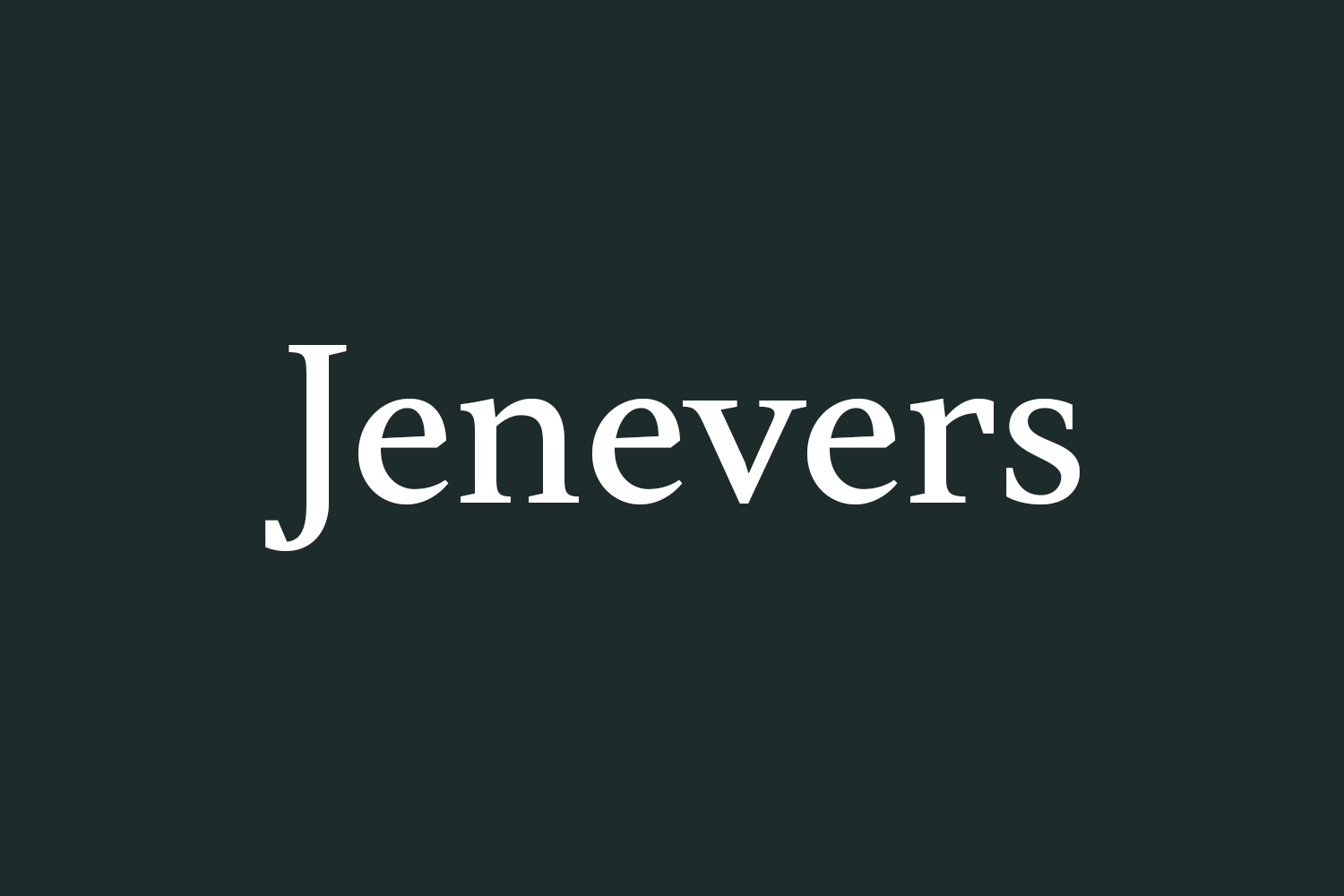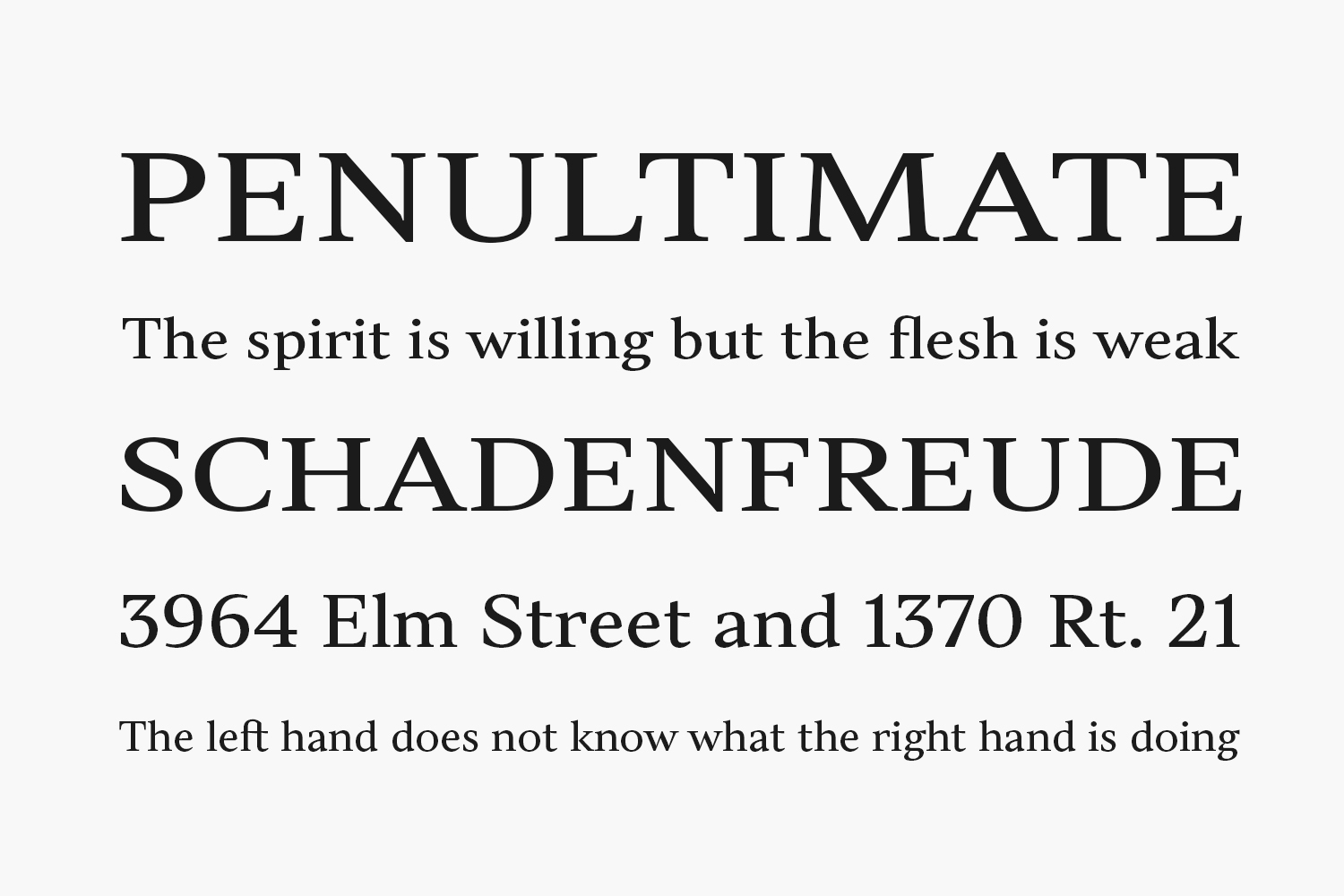
Jenevers Free Font Family is like a cool breeze on a warm summer day – refreshing, vibrant, and full of energy. This font exudes a modern and stylish vibe, perfect for designers who want to create eye-catching and trendy designs. Its bold and playful letterforms will catch your attention and inspire your creativity, while its clean lines and smooth curves give it a professional edge. Jenevers Free Font is not only visually stunning, but it also communicates a sense of youthfulness and excitement that will make any project stand out. Whether you’re designing a website, poster, or logo, Jenevers Free Font is the perfect choice to add a touch of modern flair and personality to your work.
Designed by TypeType Foundry